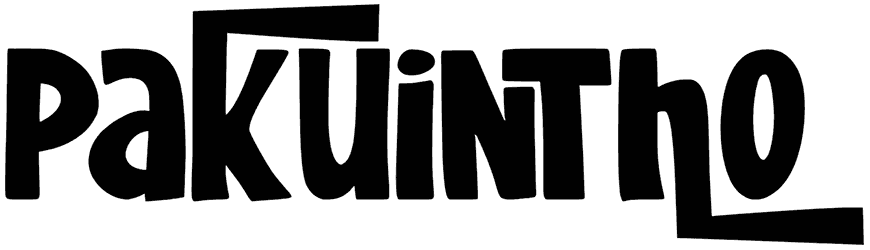
Jungle Fever font is special because it has a combination of sans serif and comical style with a classic feel. This retro font offers chunky bold characters to give your design a strong, playful, and exciting feel with a serious look.
Keep in mind you can create whatever you are visualizing as it offers upper case A to Z alphabets, a full set of numbers, and punctuations. Common places you might decide to utilize Jungle Fever are books, headings, clothing, and games.